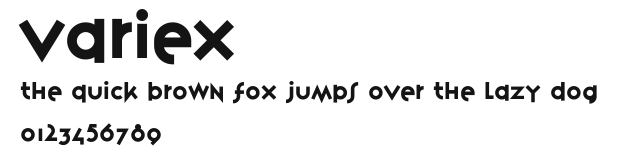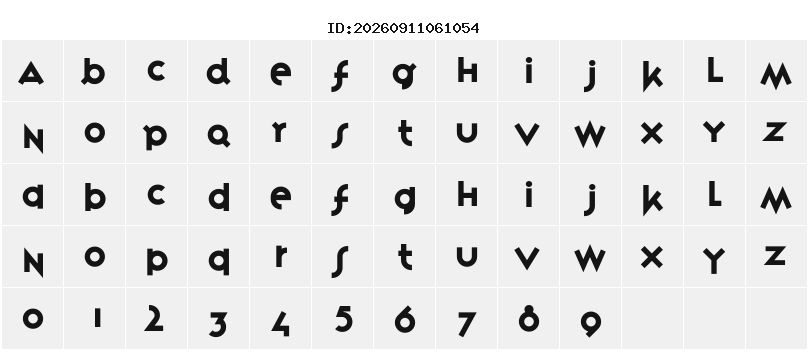
• Font Name: Variex
• Font Style: Roman
• Full Font Name: Variex
About Variex.ttf
Variex.ttf is a modern, elegant sans-serif font designed for ultimate readability and visual harmony. Perfect for branding, headlines, web design, and print materials.